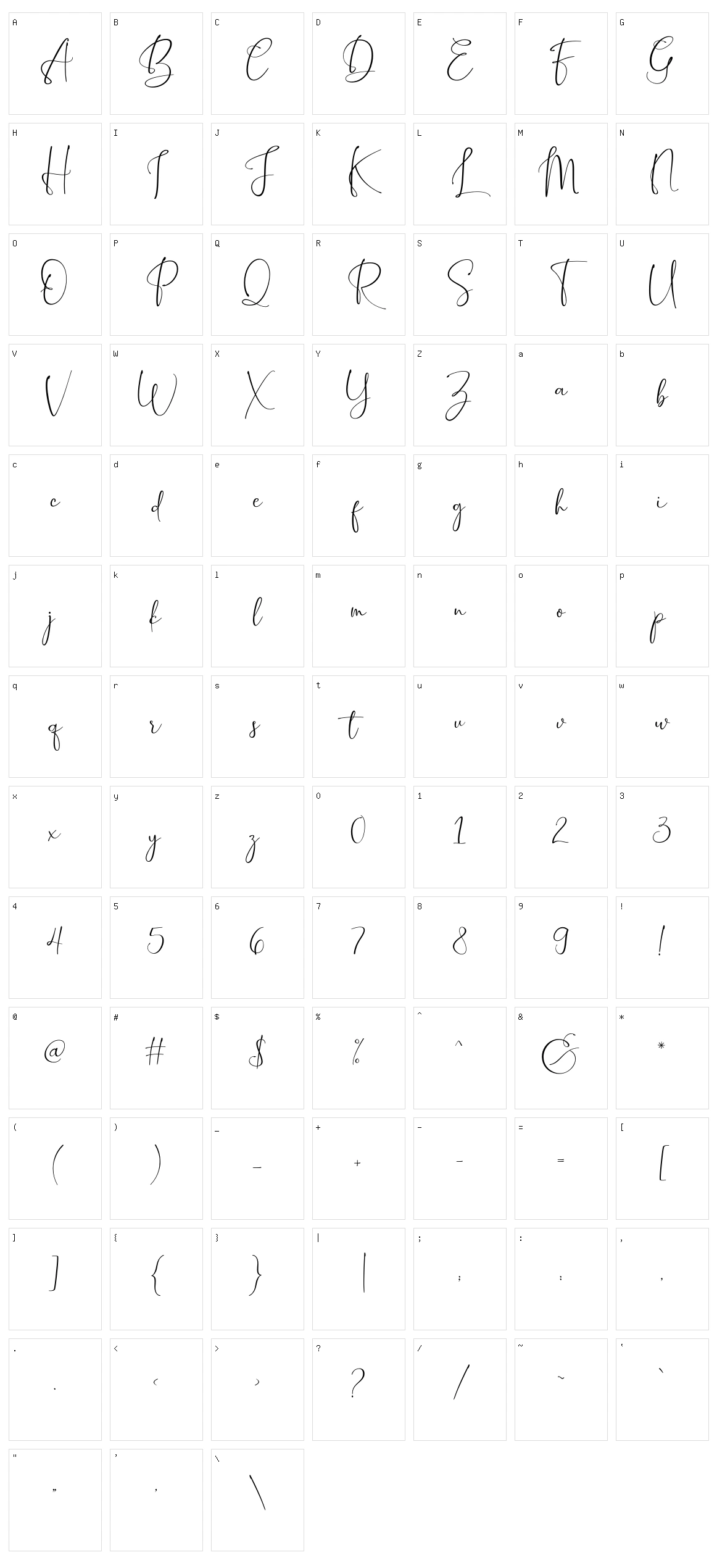
The free font Peach Cuties is carefully designed by Riyadh Rahman, showcasing a thoughtful balance of creativity and usability and falls under the Script font style. When you download the ZIP file, it contains only 77.12 KB of font files, making it lightweight and quick to download. Please review the license details below to understand permitted usage and distribution rights. If license information is not available, we recommend using this font for personal projects only or contacting the author directly for commercial usage permissions.